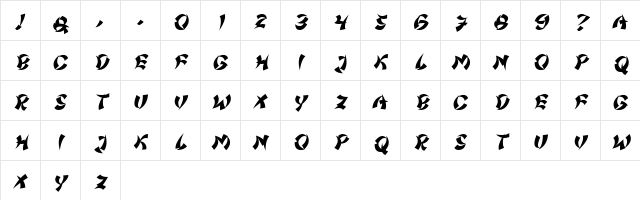
Chinatown Champs Italic
Design Context for Chinatown Champs Typeface
Chinatown Champs is a composed and adaptable typeface that performs quietly and consistently across a wide range of design contexts. The dynamic lean of this cut emphasises speed and emphasis in any layout.
Pro Tip: Use Chinatown Champs for emphasis, pull quotes, and subheadings where its slanted energy can add rhythm to the layout.